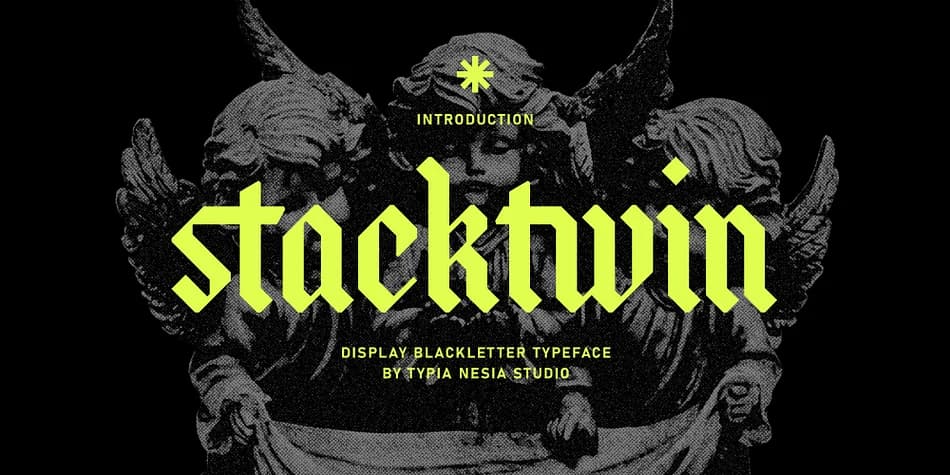
Stacktwin harnesses the weight and authority of classical blackletter typography but refuses to stay locked in tradition. Designed by Typia Nesia, this gothic typeface combines heavy strokes and extreme contrast into letterforms that feel rooted in medieval history yet unmistakably contemporary. Its tall vertical emphasis and thick-thin relationships create immediate visual gravity, commanding attention in layouts where presence matters far more than subtlety.
The typeface earns its place on band merchandise, album covers, and tattoo flash designs where traditional blackletter lettering establishes instant mood and credibility. You'll see it working equally well on vintage concert and event posters, craft beer and small-batch spirits labels, title sequences for dark fantasy fiction, and high-end luxury branding that trades finesse for boldness. Stacktwin ships with full character coverage including uppercase, lowercase, numerals, and punctuation, plus extensive ligatures and contextual alternates that let you customize letter combinations and fine-tune details. Multilingual support extends across global scripts, ensuring your international projects maintain this dramatic visual edge without compromise.
Stacktwin is for designers building brands that demand visual backbone. When your work calls for presence, cultural depth, and the kind of authority that won't apologize for its ambition, grab Stacktwin on Creative Fabrica.
- Ornate, Gothic
- Logos, Certificates
- medieval themes, band merch, and tattoo lettering
- a clean sans-serif for body text
Stacktwin Font is a blackletter font that shines as a display or heading face. Pair it with a clean serif or sans-serif font for body text β the contrast creates a clear hierarchy while the two styles stay balanced and easy to read.